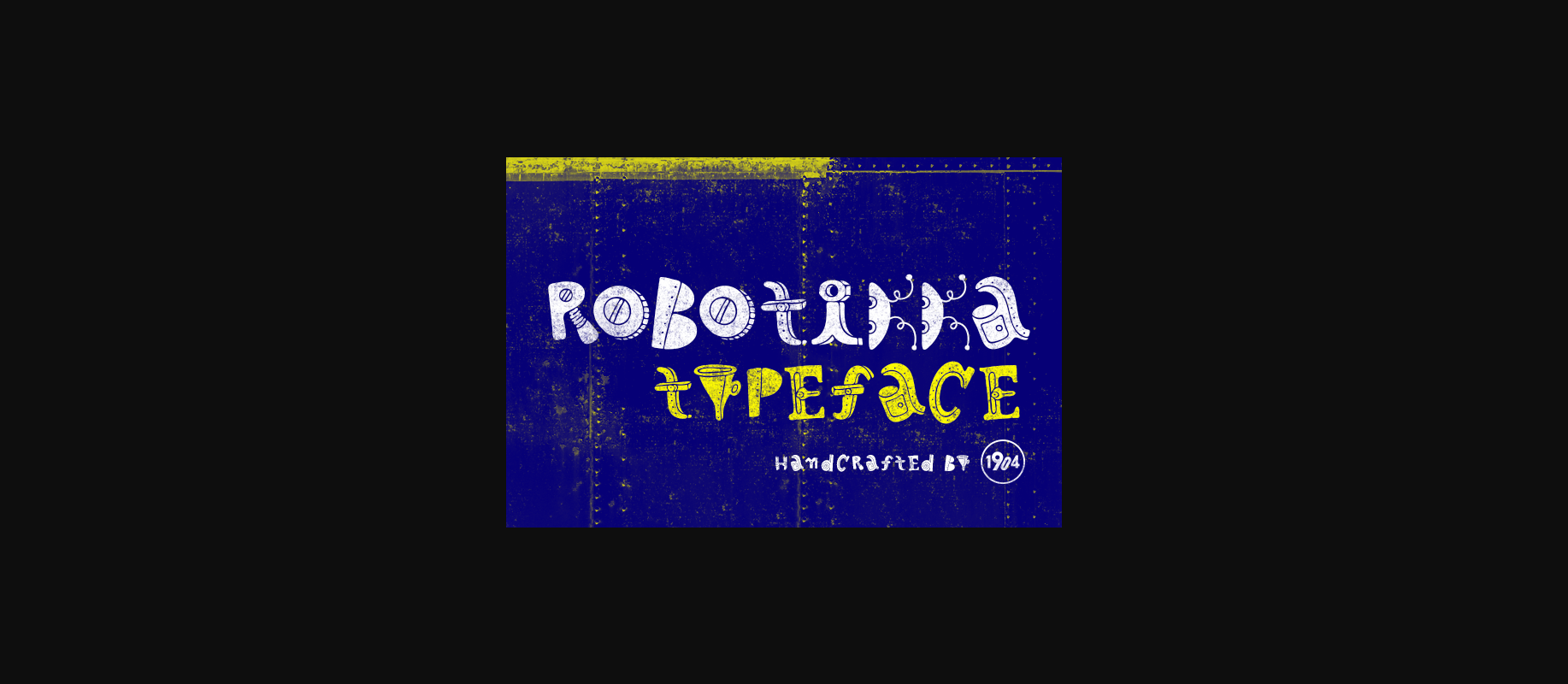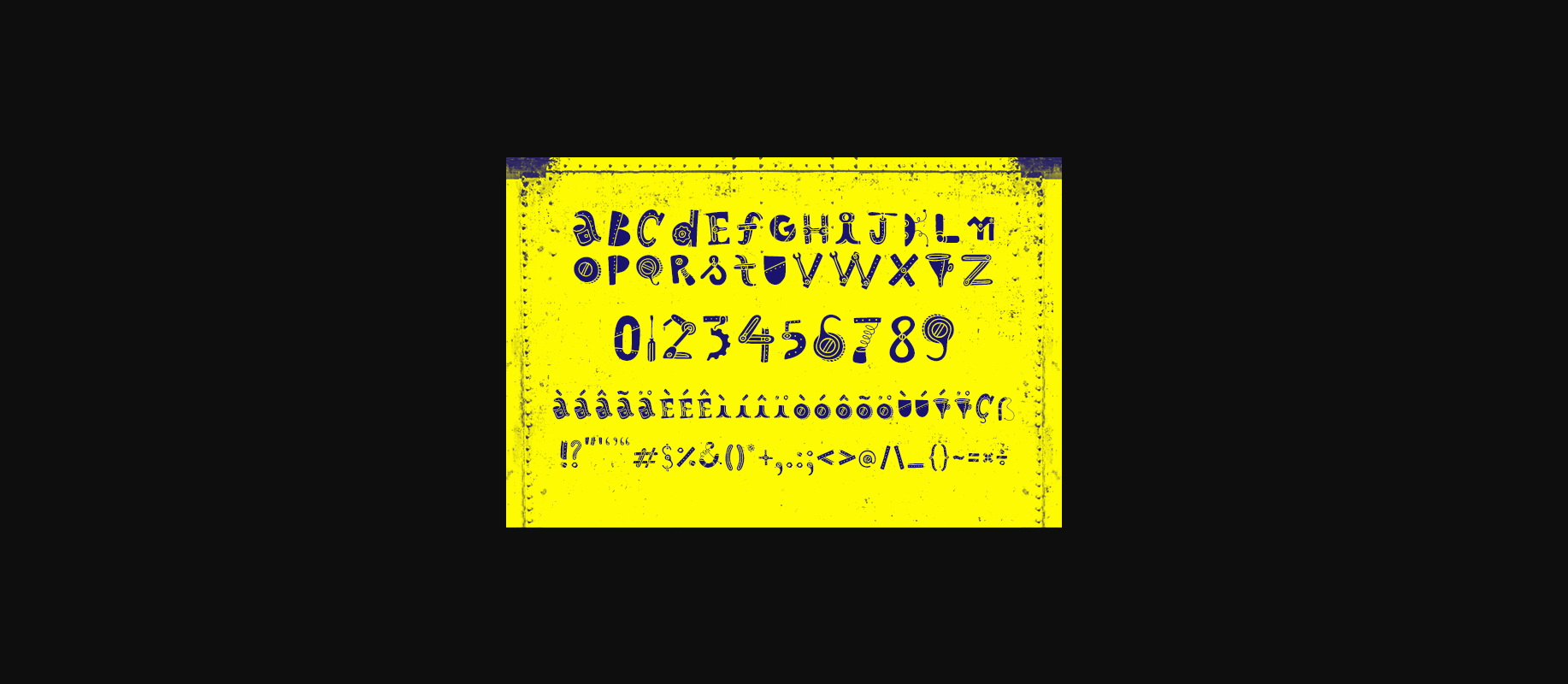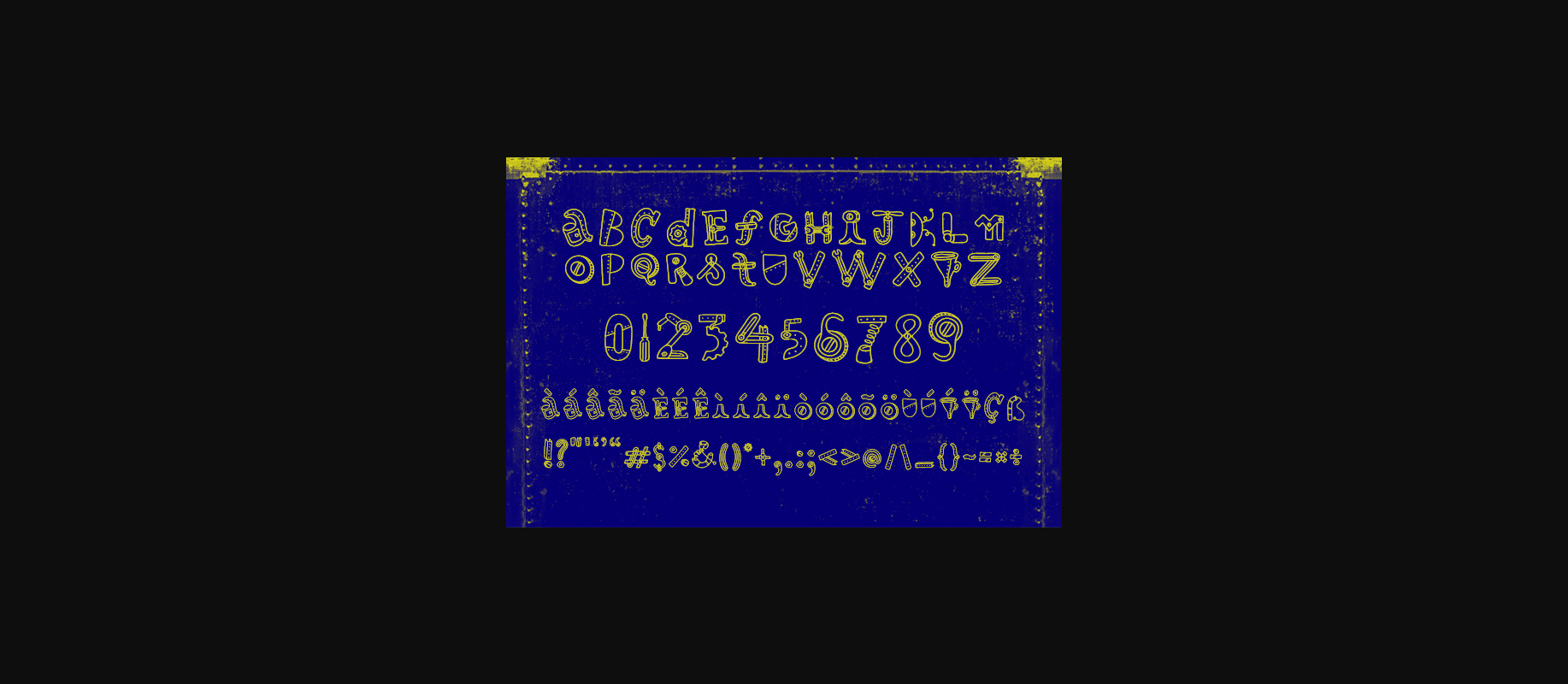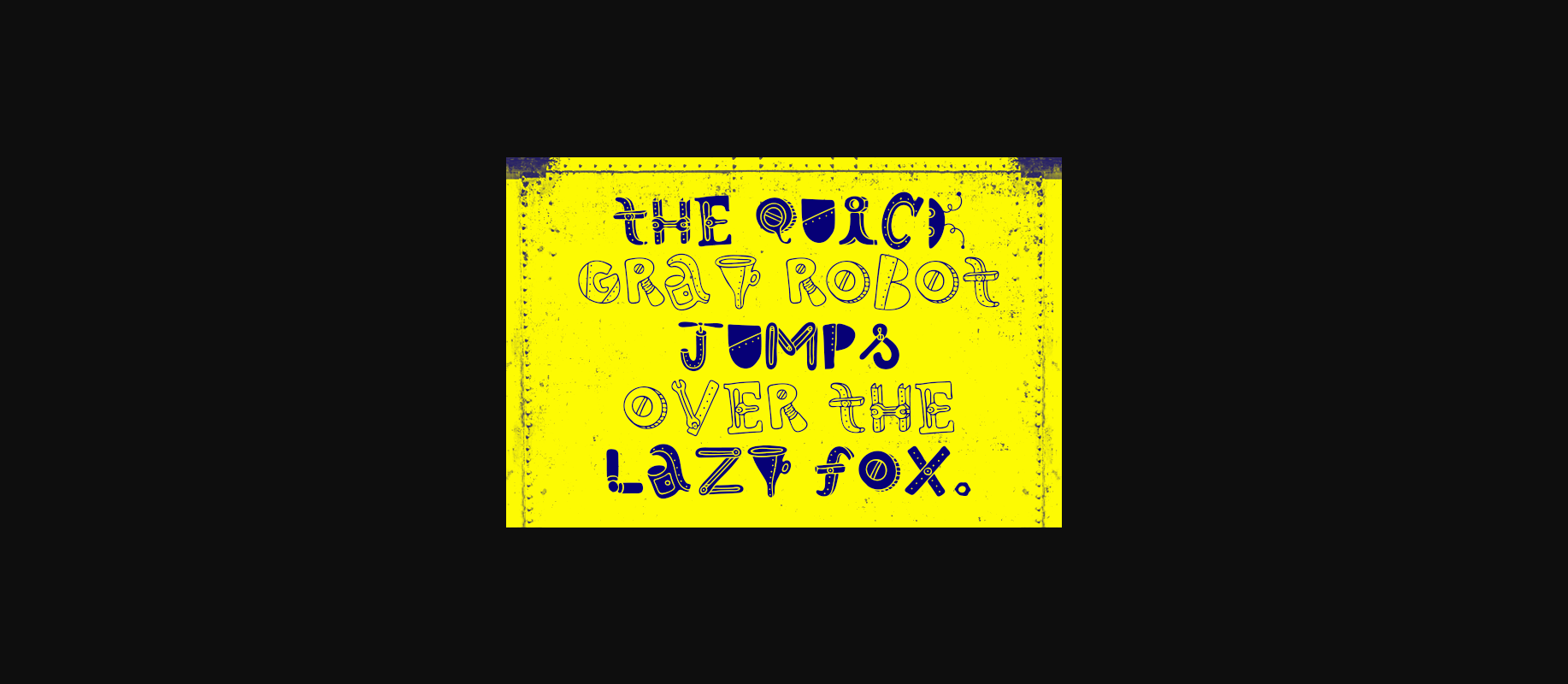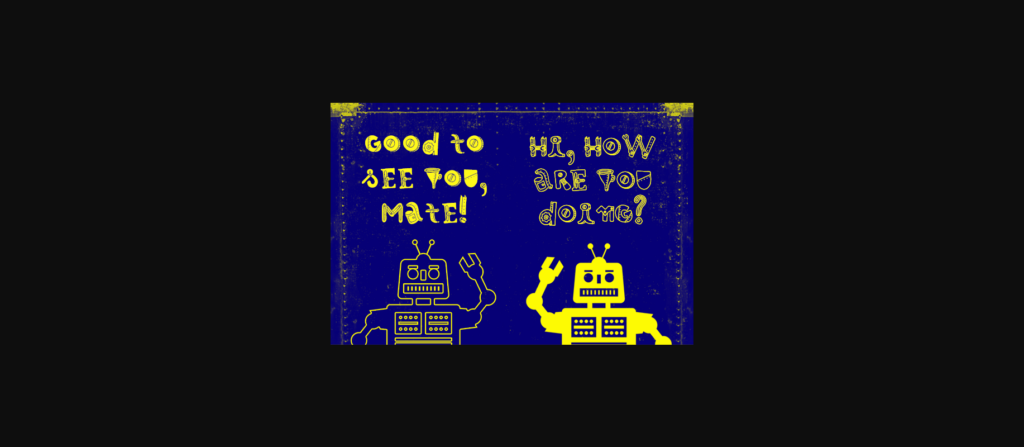
Robotikka Font
About Robotikka Font
Robotikka is a cool, retro styled and uniquely designed decorative font. Whether you are using it for cartoon-related designs, children games, quotes, titles, brand names, book covers, posters, or just any creation that requires a touch of joy, this font is a great choice.